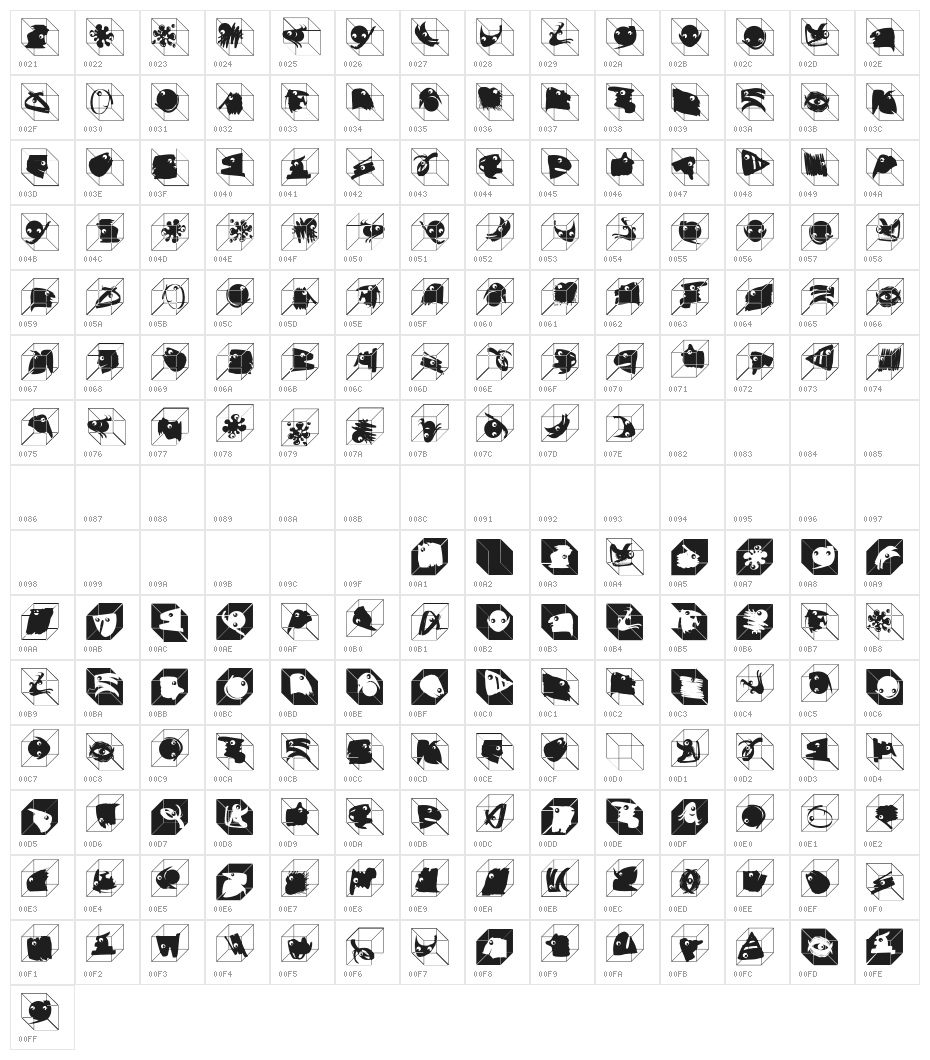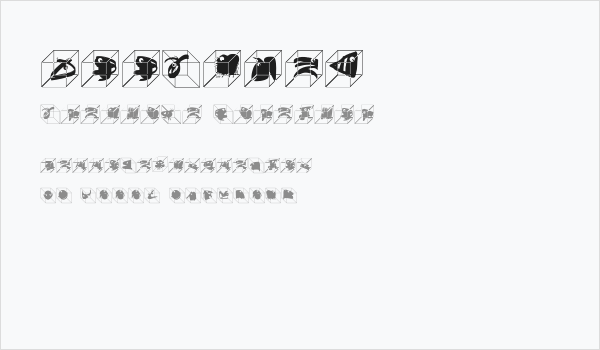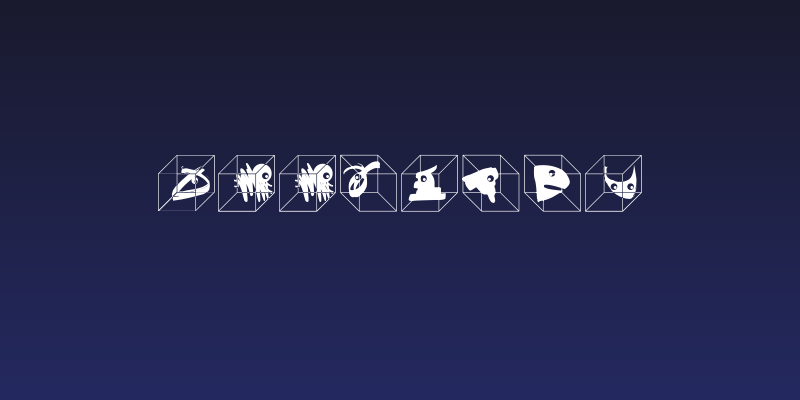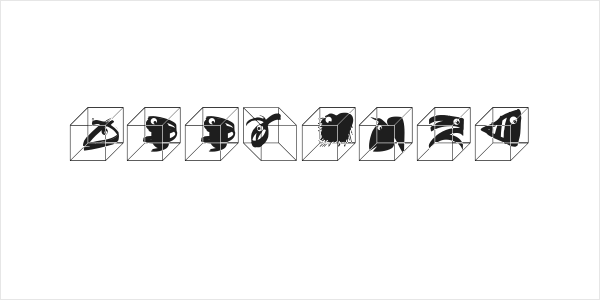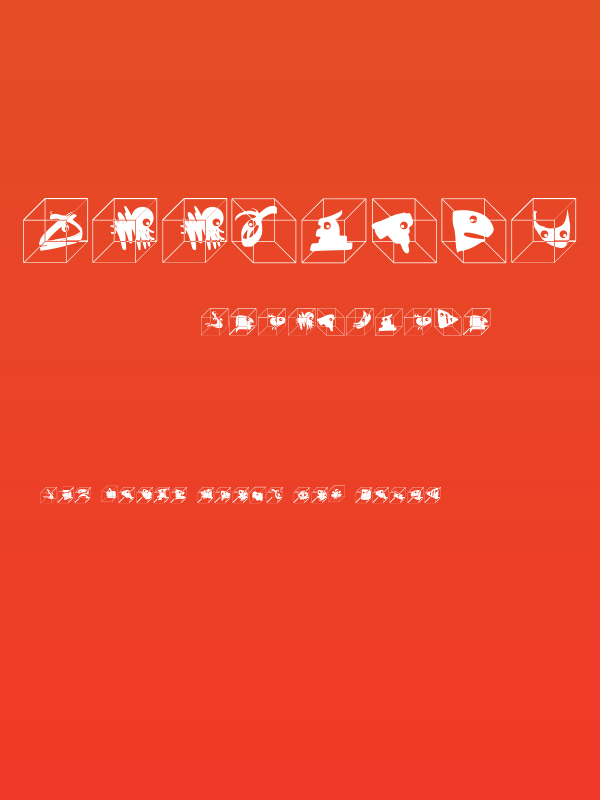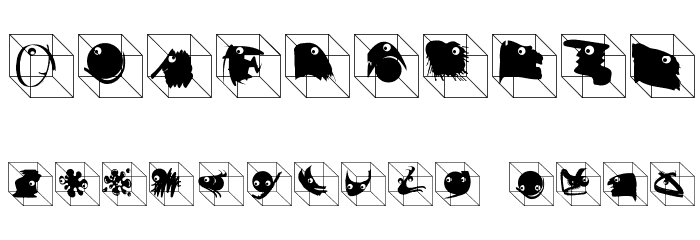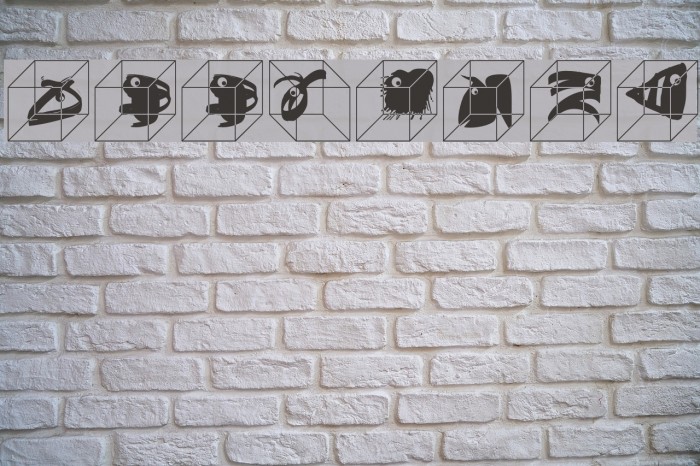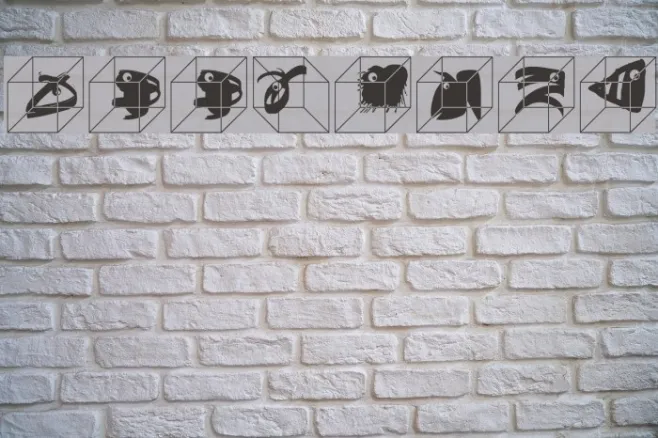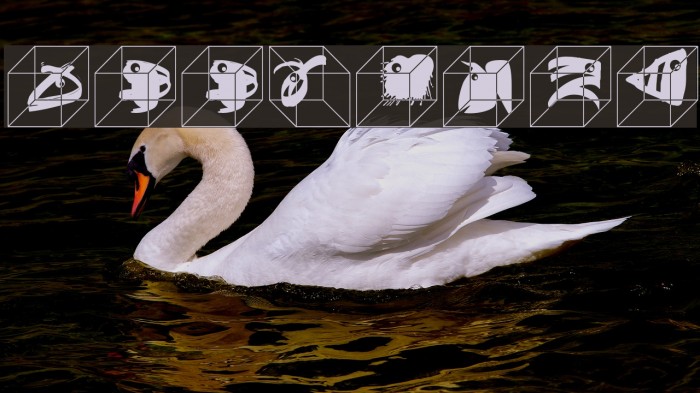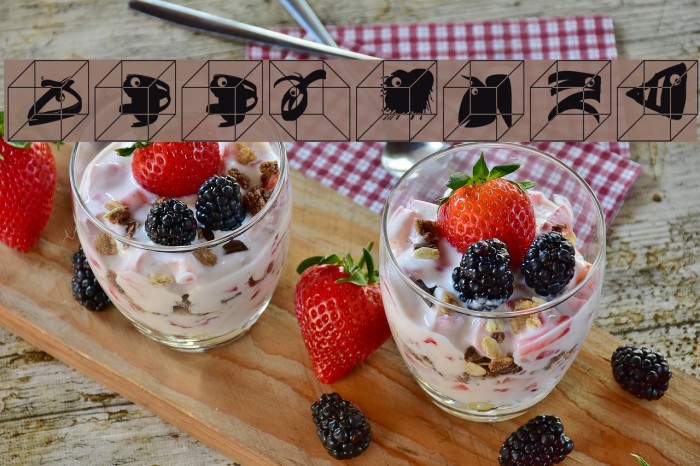
ZooCages Font
ZooCages Description
This is not a traditional font but rather a collection of whimsical, cartoon-like animal illustrations enclosed within cube-like structures. Each character is uniquely designed, featuring exaggerated features and playful expressions, making them more suitable for decorative purposes rather than textual representation. The style is highly creative and imaginative, with each character resembling a different animal or creature, adding a sense of fun and humor. The overall appearance is bold and eye-catching, with a strong emphasis on visual storytelling rather than legibility.
| Use Case | Logos, Illustrations, Decorative elements |
| Proposed Projects | Ideal for children's books, playful branding, educational materials, or any project requiring a whimsical and creative touch. |